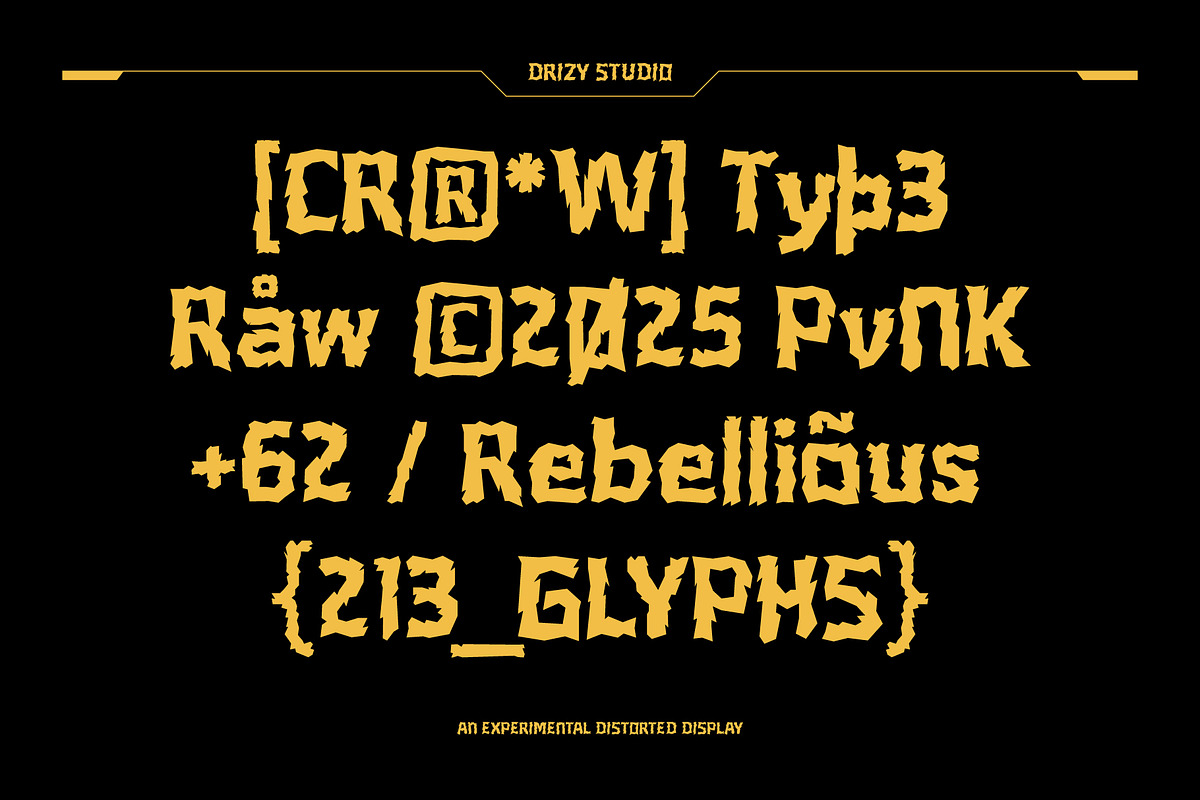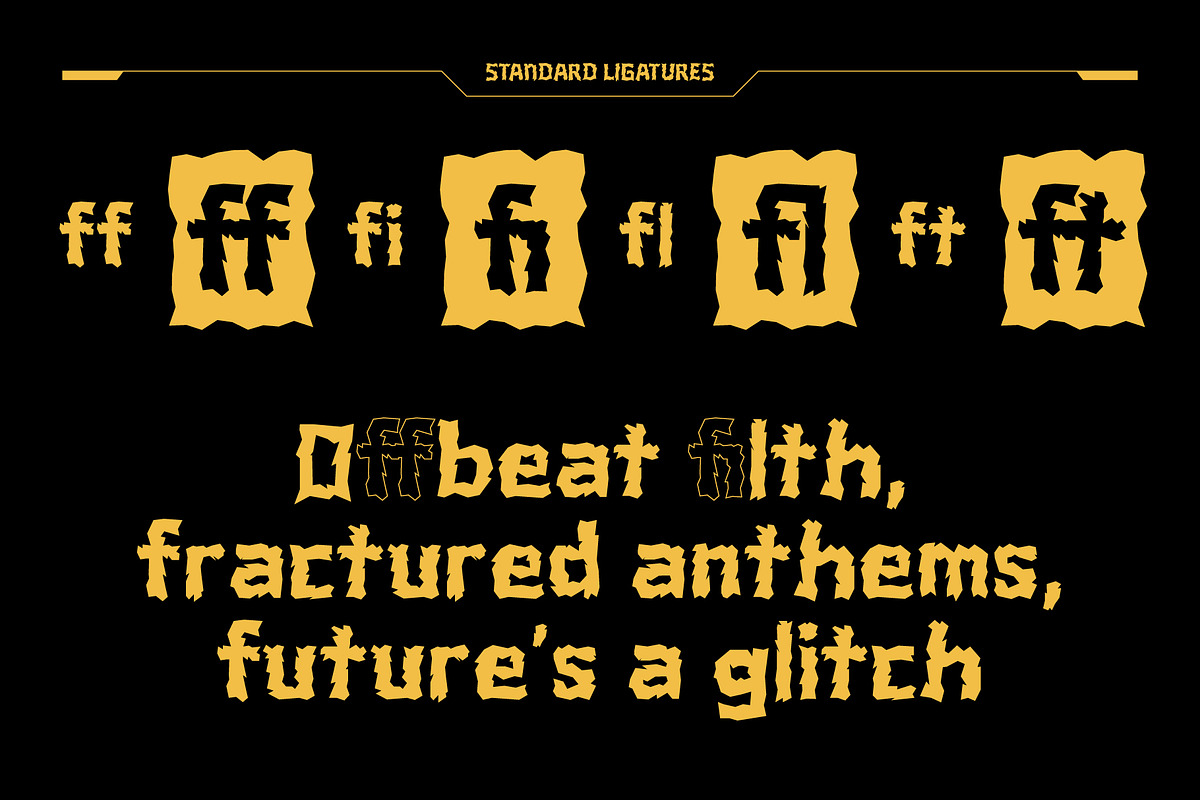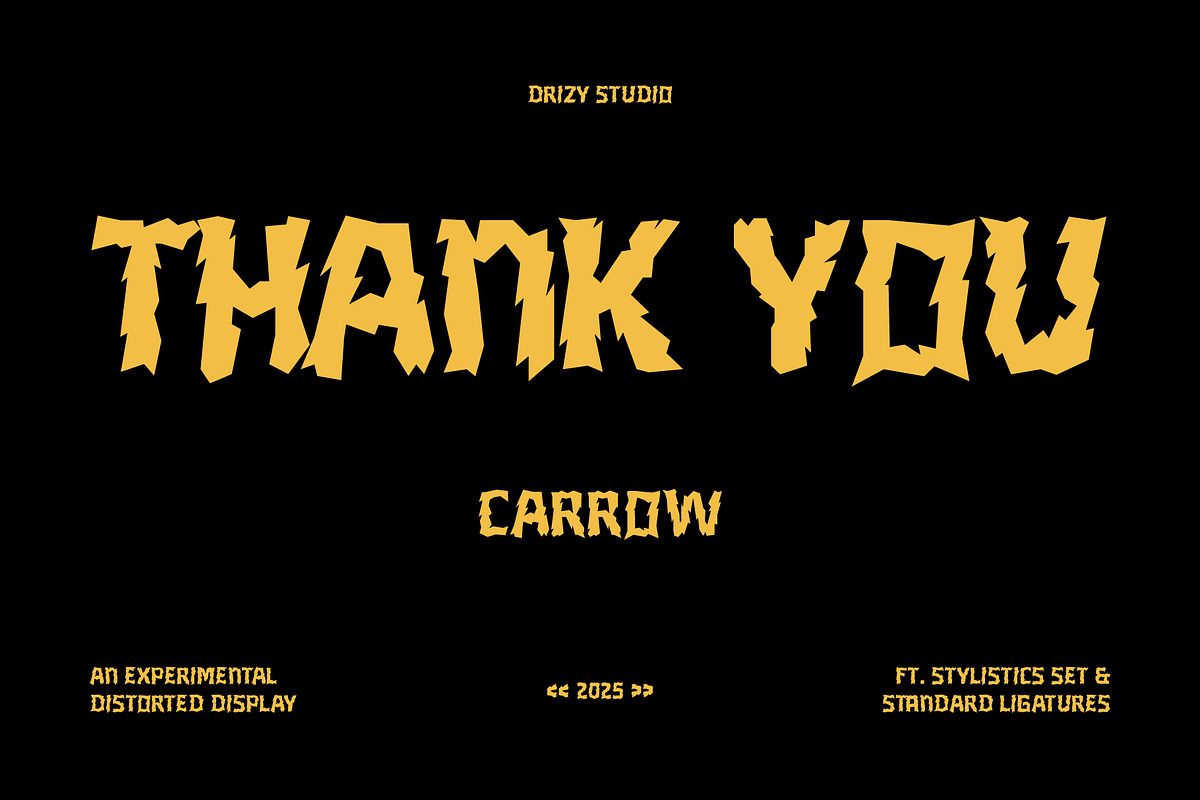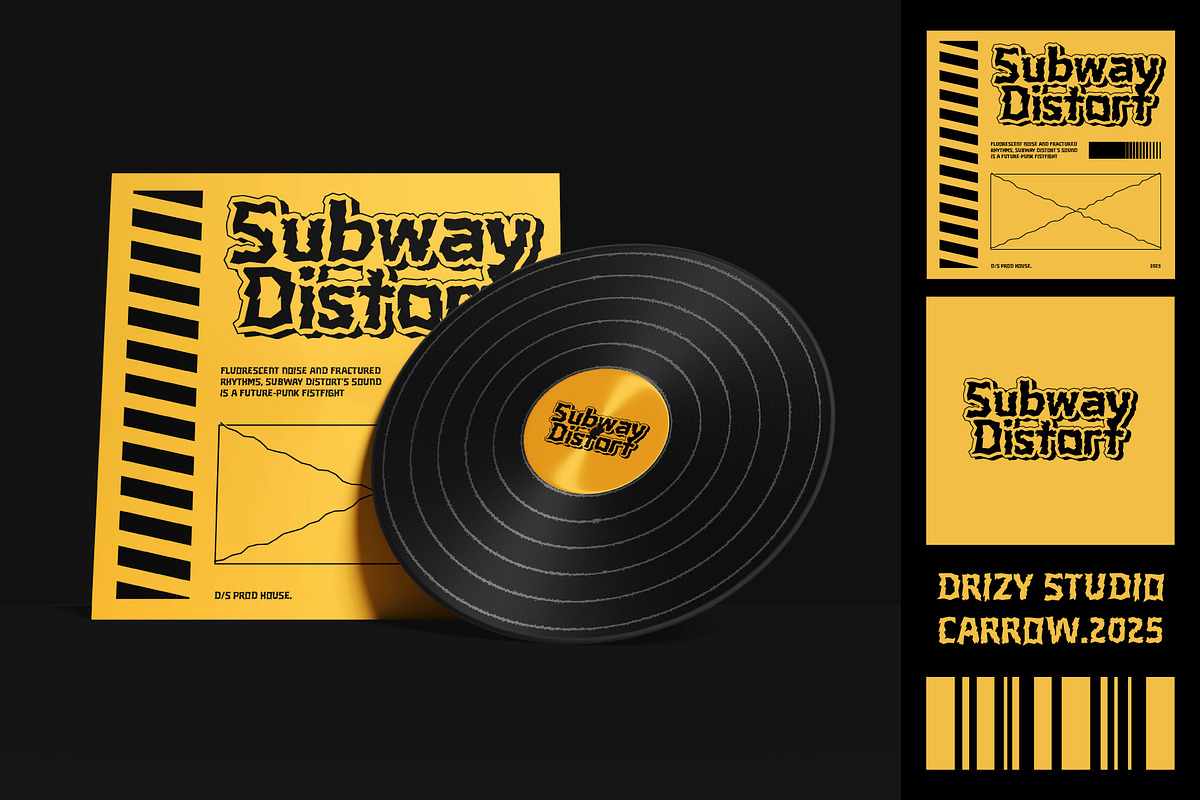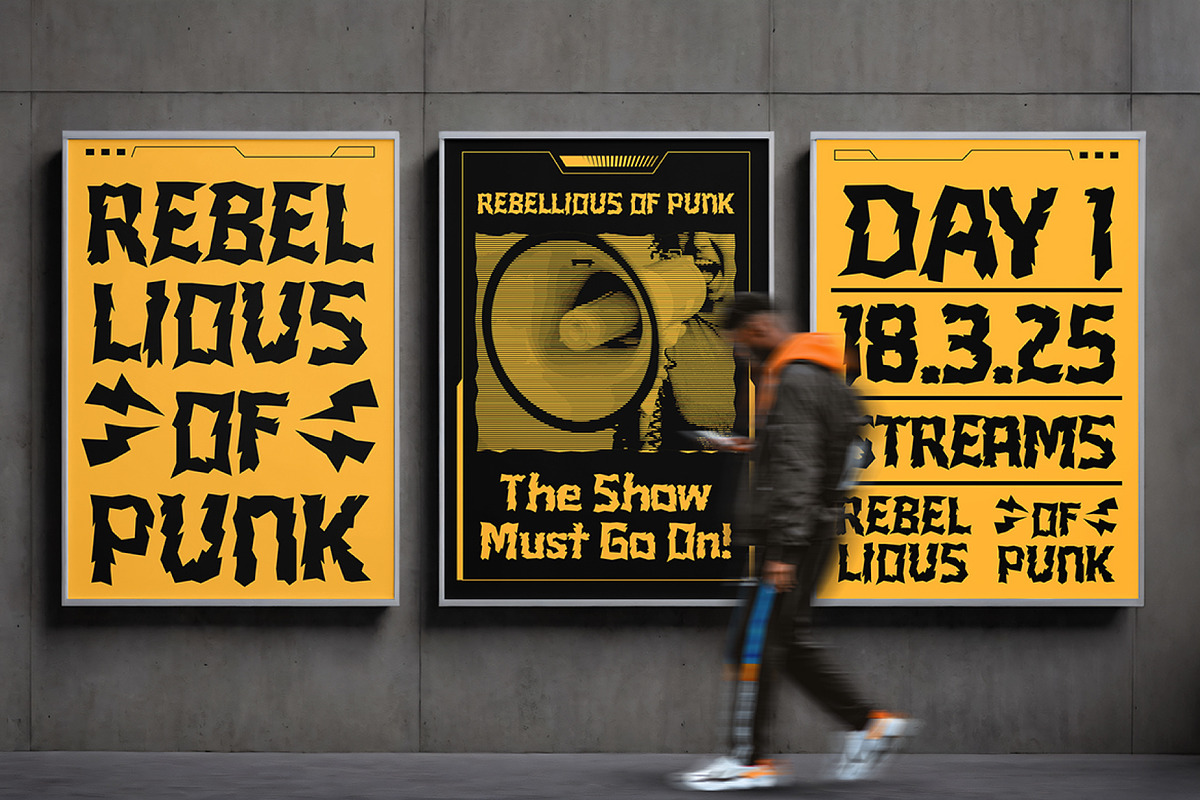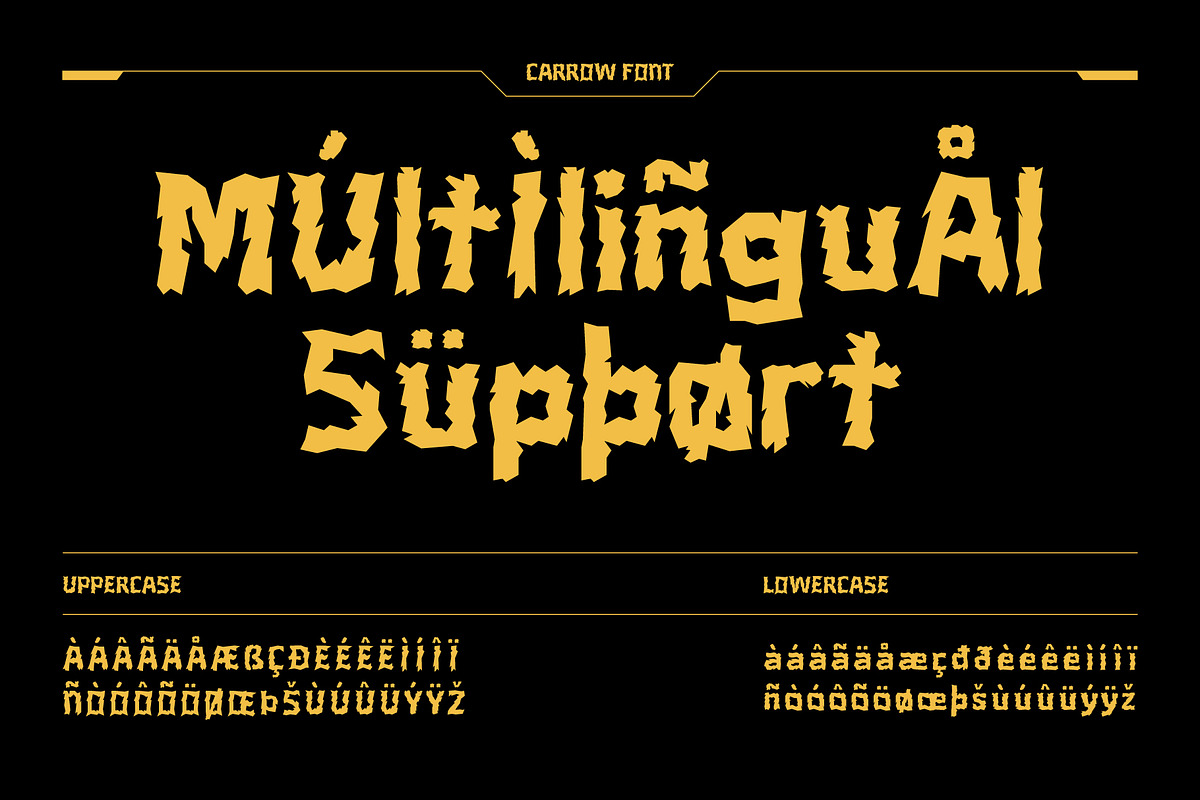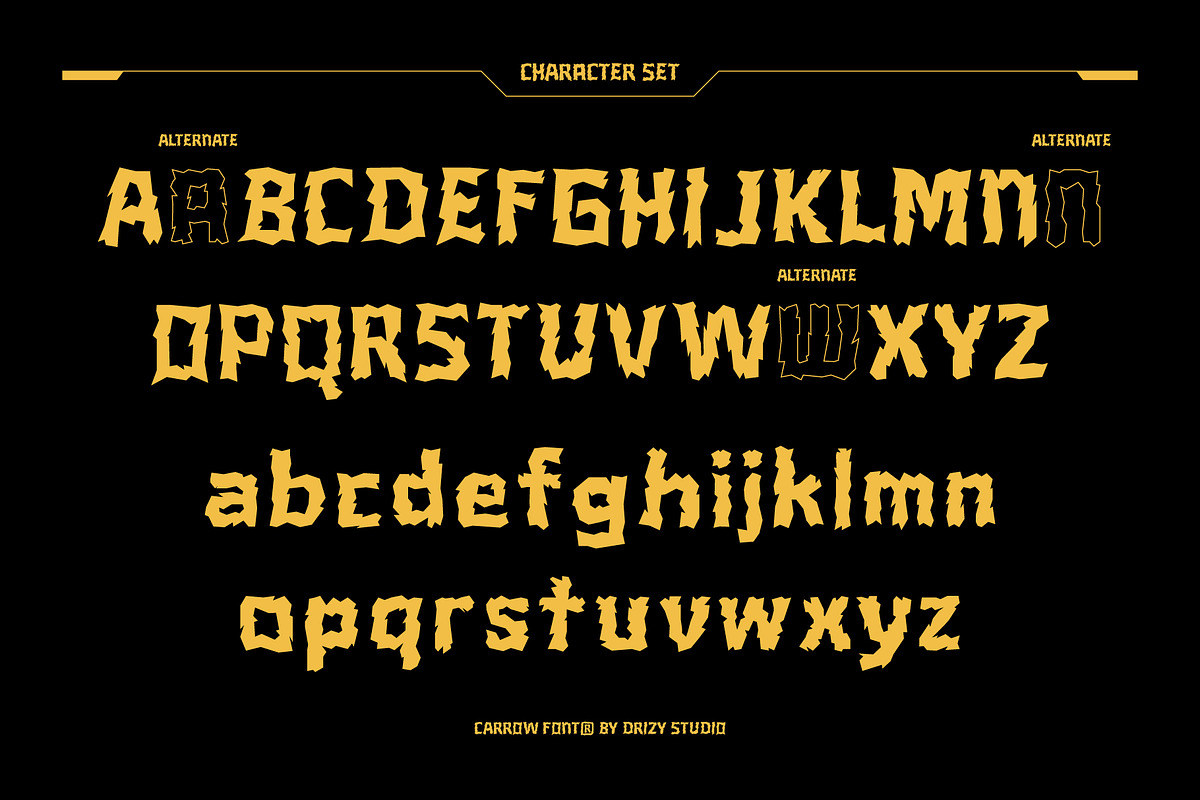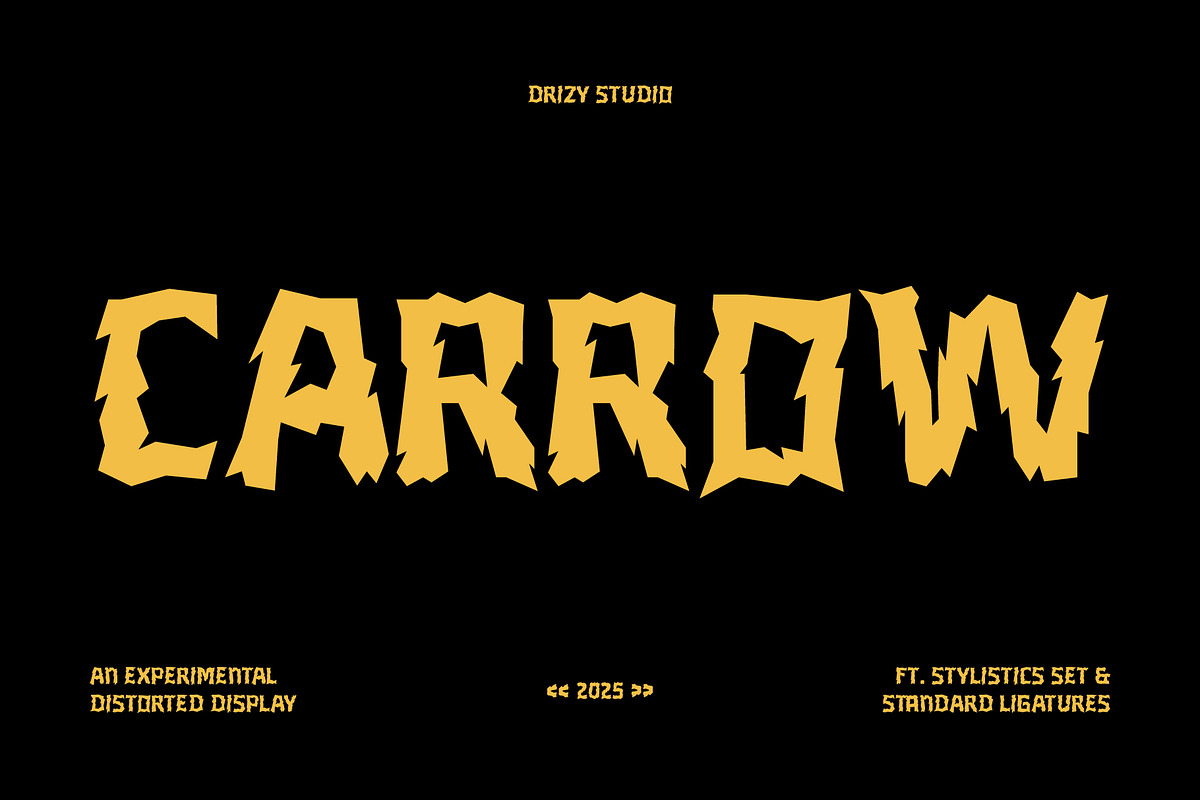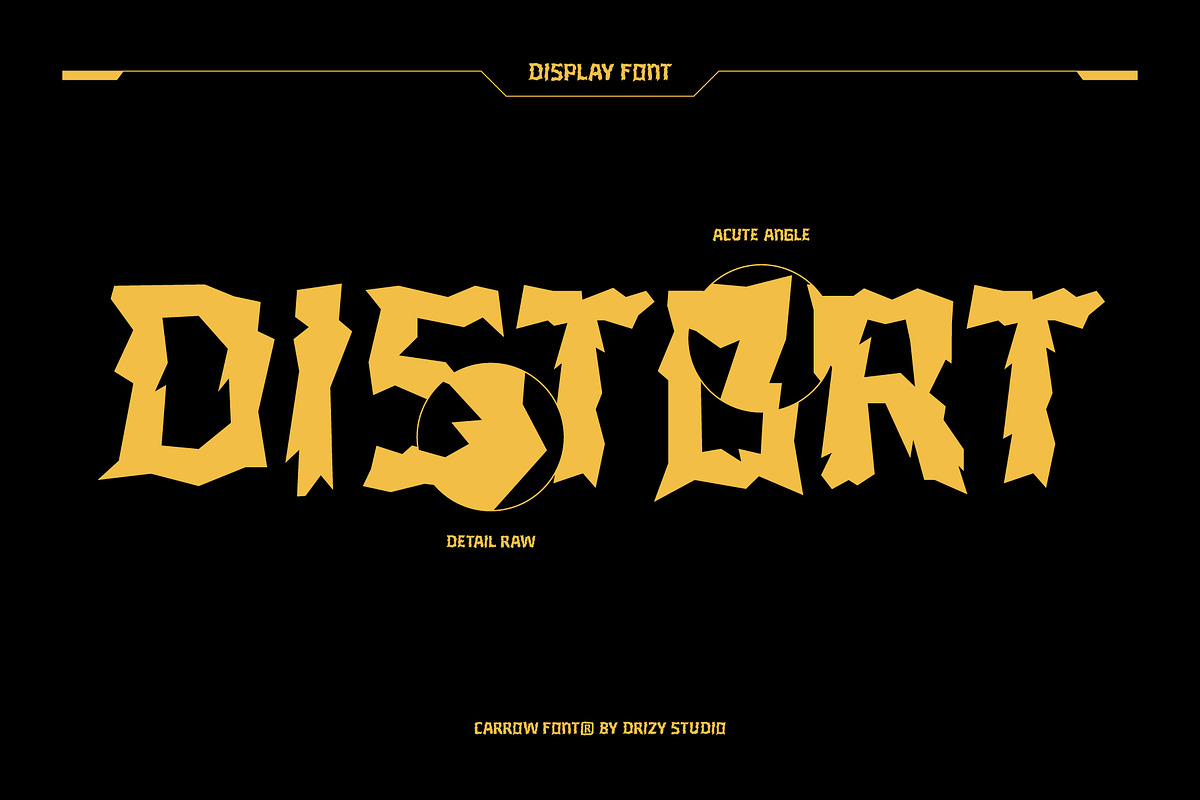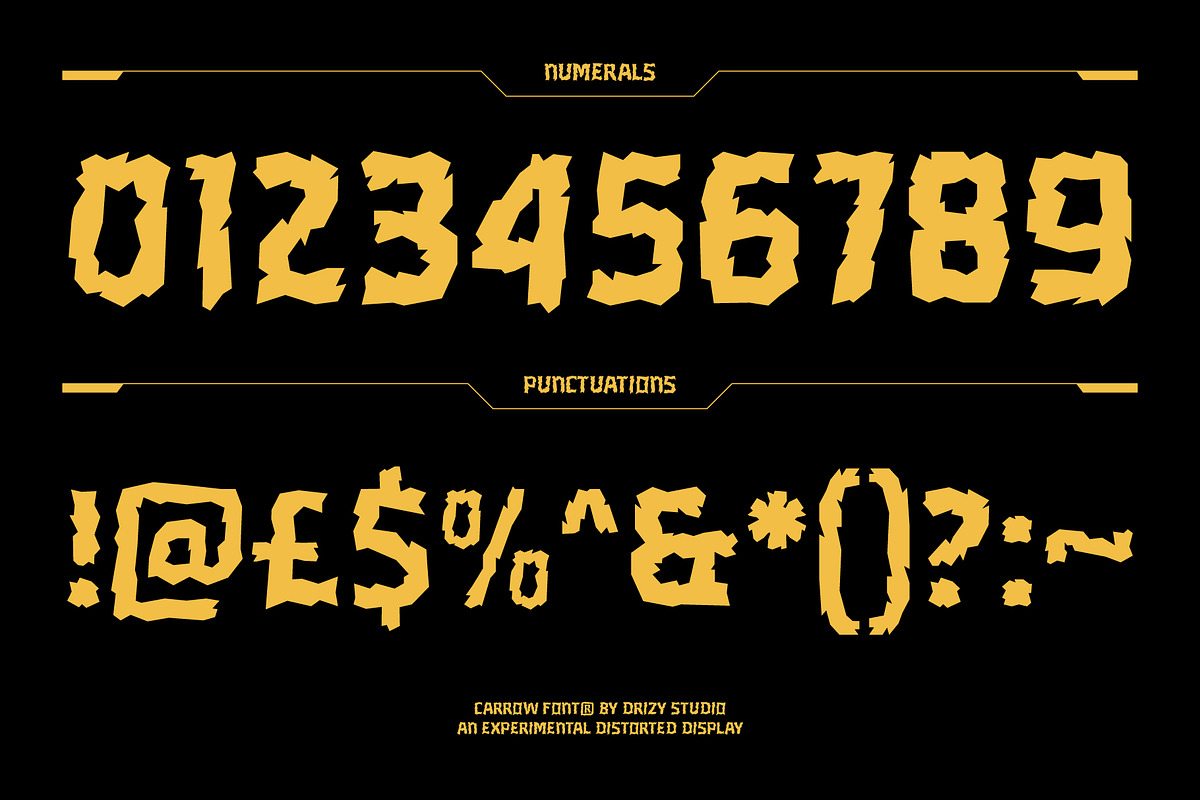
Carrow – Experimental Distrorted
Carrow – Experimental Distrorted Display Font
Unleash the raw energy of Carrow – Experimental Distrorted Display Font, an experimental distorted display font that breaks all the rules. Inspired by Modern Punk aesthetics, Carrow thrives on chaos, boldness, and rebellion. Its jagged edges, warped letterforms, and unconventional structure make it the perfect choice for designs that demand attitude and intensity. Whether you’re crafting grunge album covers, edgy streetwear branding, rebellious posters, or cyberpunk visuals, Carrow injects an electrifying presence into your typography. Break the mold, defy expectations, and let Carrow amplify your creative voice.
Carrow – Experimental Distrorted Display Font features:
- Character Set (Uppercase & Lowercase)
- Punctuation & Numbers
- Stylistics set